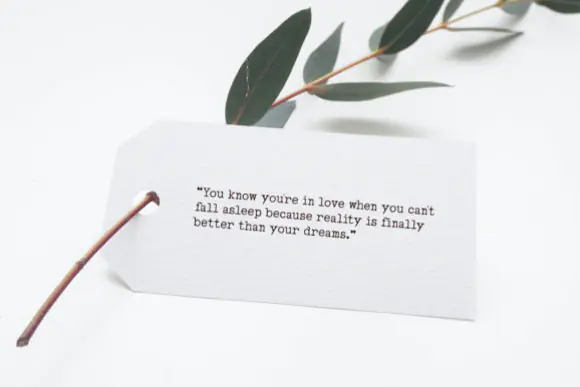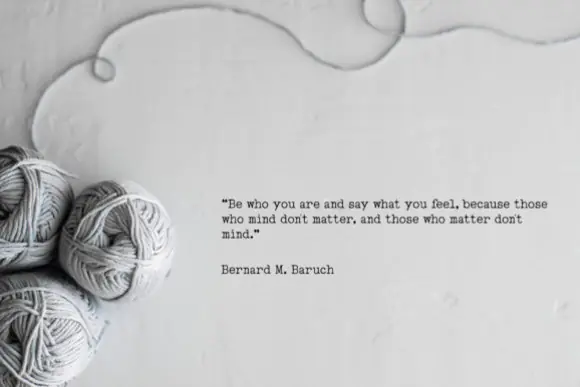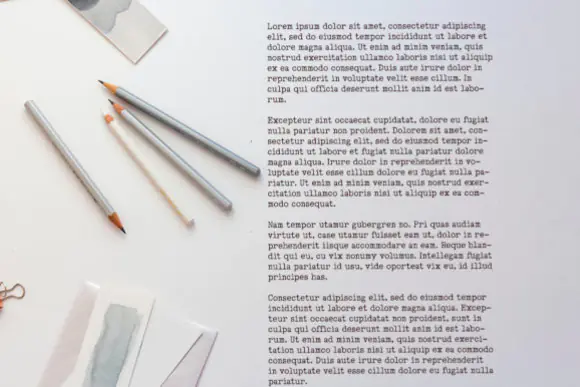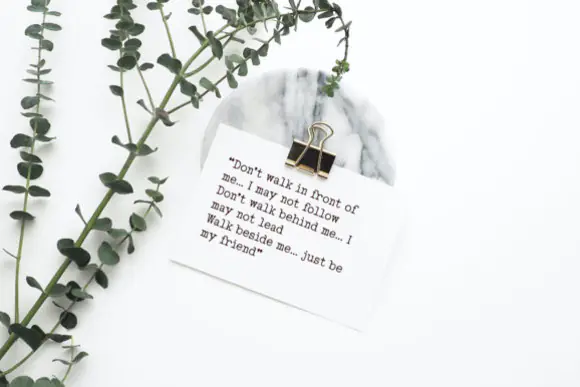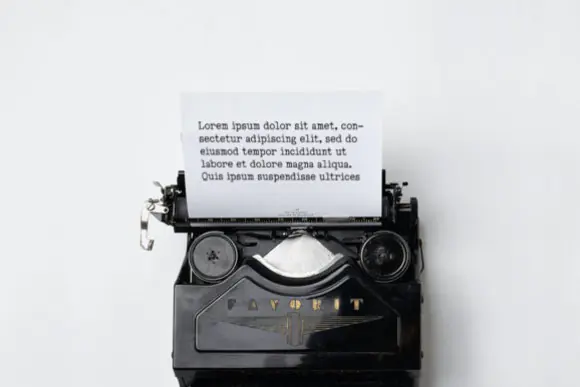
Leorio Font | Minimal Neat Serif Typeface for Logos, Branding, Editorial Design, Invitations, Packaging, Posters & Elegant Creative Projects
Create clean, refined, and professional designs with Leorio Font, a minimal and neat serif typeface designed to bring elegance, readability, and timeless style to your creative work. With its simple serif structure and polished appearance, this font is perfect for projects that need a classy, modern, and sophisticated visual identity.
Leorio Font is highly versatile and can be matched with a wide range of design styles. It works beautifully for logo designs, branding projects, editorial layouts, magazine titles, invitations, product packaging, posters, book covers, social media graphics, website headers, business cards, stationery, labels, and premium marketing materials.
Its neat serif personality makes it ideal for both personal and commercial creative projects, especially when you want your typography to feel elegant, balanced, and easy to read. Whether you are designing a boutique brand logo, a stylish invitation, a luxury product label, or a clean editorial layout, Leorio Font helps your design stand out with quiet confidence and refined beauty.
• Logo designs
• Branding projects
• Editorial layouts
• Magazine titles
• Invitations
• Product packaging
• Posters and flyers
• Book covers
• Website headers
• Business cards
• Stationery designs
• Labels and tags
• Luxury branding
• Minimal creative projects